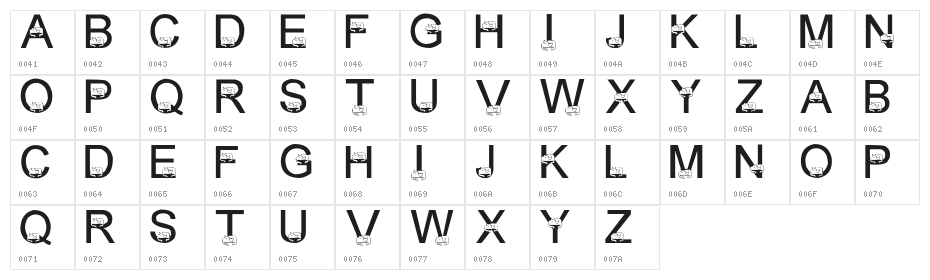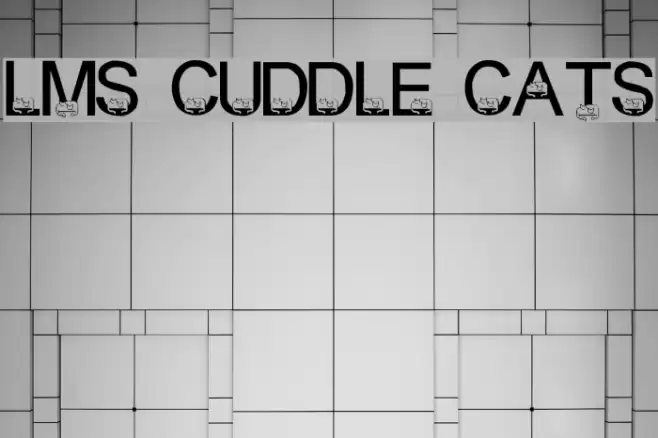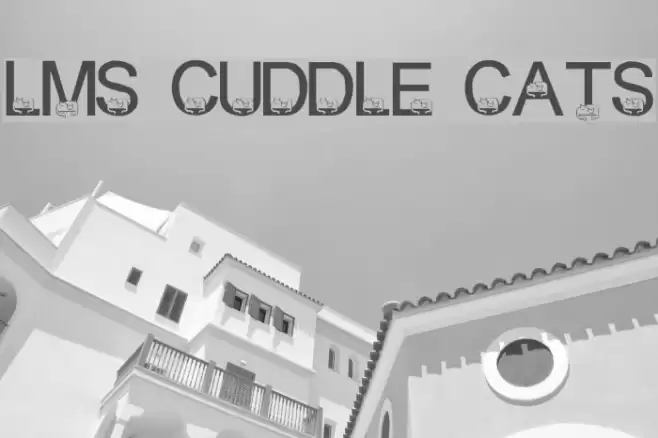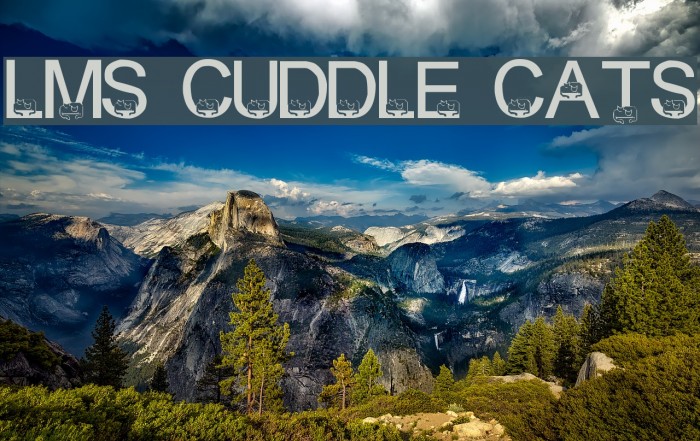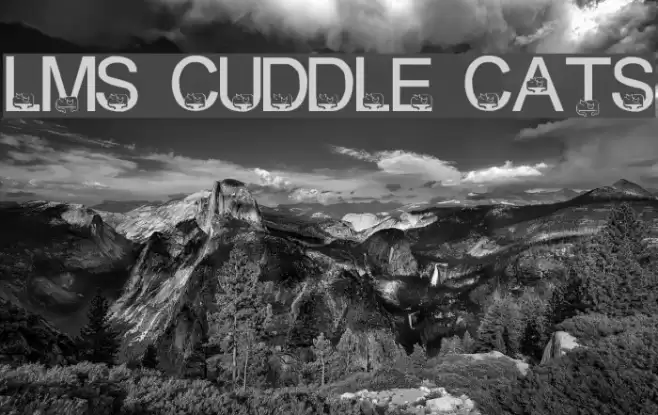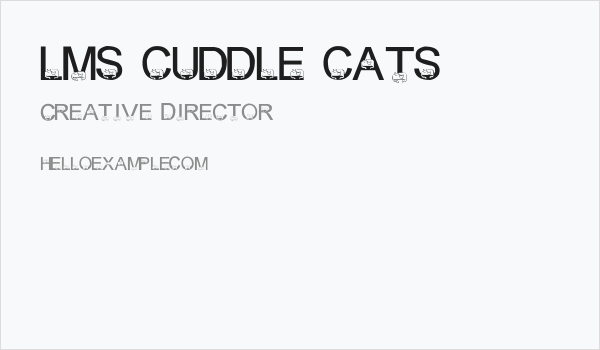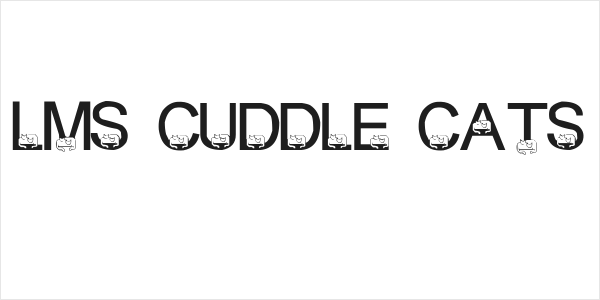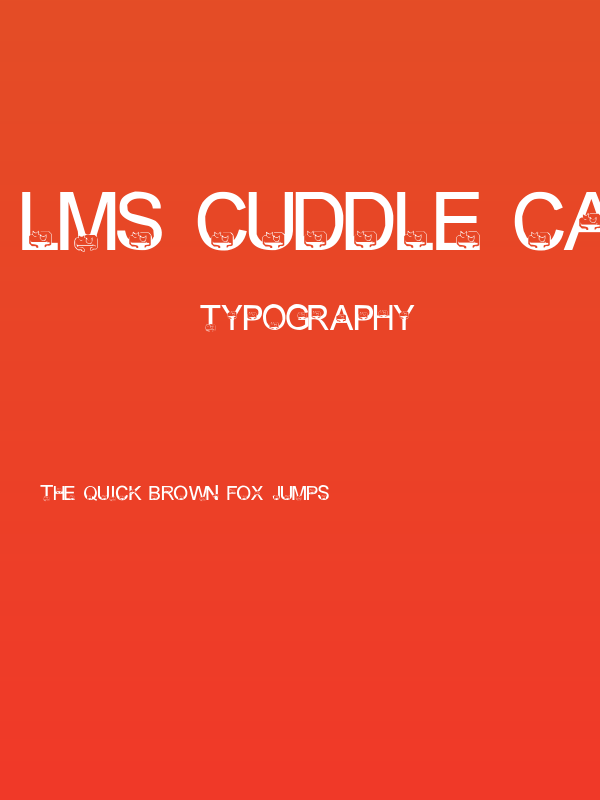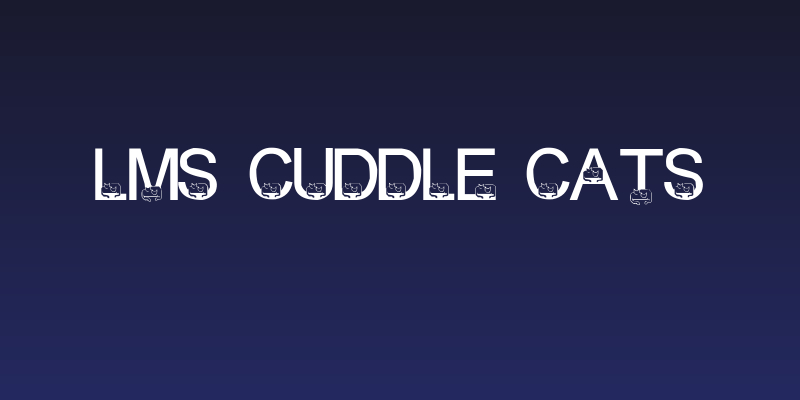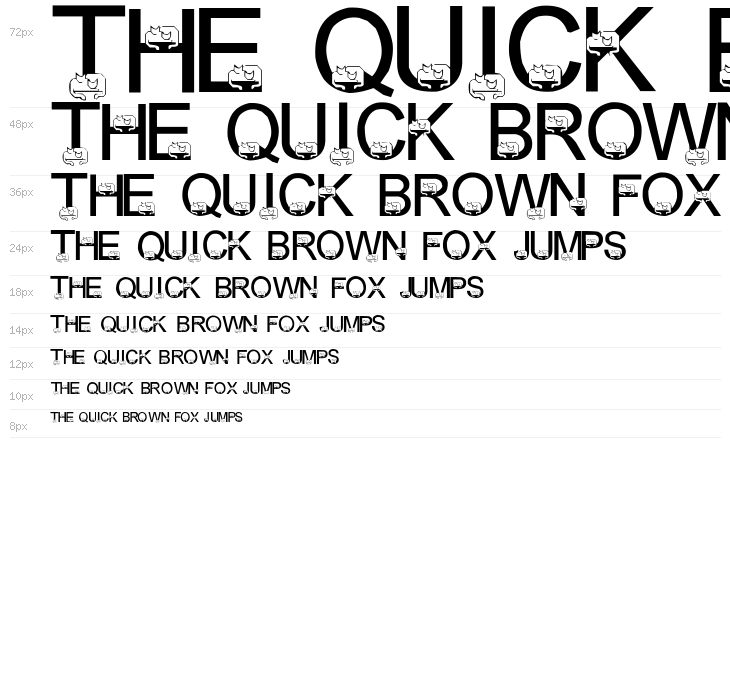
LMS Cuddle Cats Font
LMS Cuddle Cats Description
This playful and whimsical font features bold, uppercase letters with charming cat illustrations integrated into the design. Each letter is accompanied by a cute cat graphic, adding a unique and fun element to the typography. The font maintains a consistent weight and width, providing a balanced and cohesive look. The characters are evenly spaced, ensuring readability while maintaining the decorative aspect. This font is perfect for projects that require a touch of humor and creativity, making it ideal for children's books, playful branding, or any design that aims to evoke joy and lightheartedness.
Overall StyleWhimsical
Proposed ProjectsChildren's books, playful branding, greeting cards, and whimsical posters.